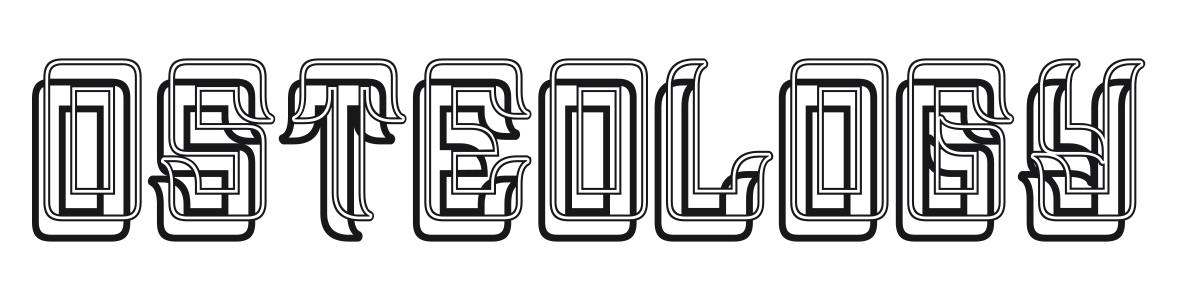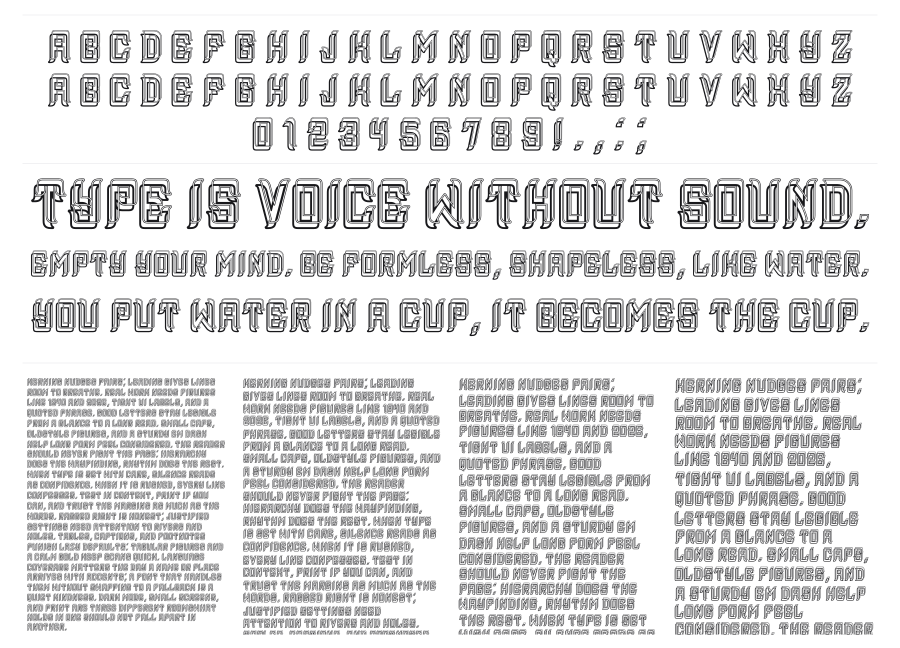
Osteology
Osteology is a heavy geometric slab-serif built around a striking multi-layer inline and outline construction. Each character reads like an engraved or carved sign, with concentric stroke lines creating a dimensional, almost architectural depth. The result sits somewhere between vintage americana and industrial art deco.